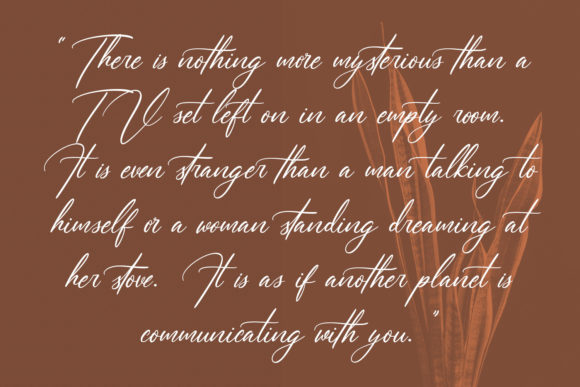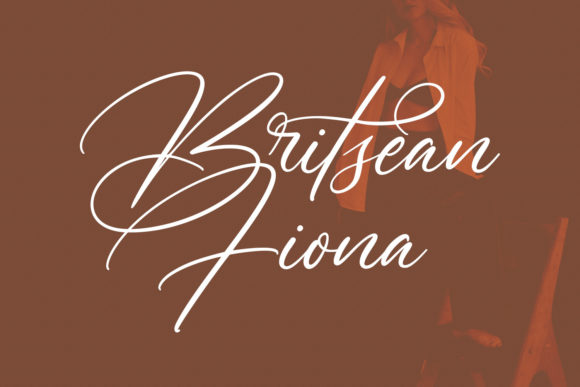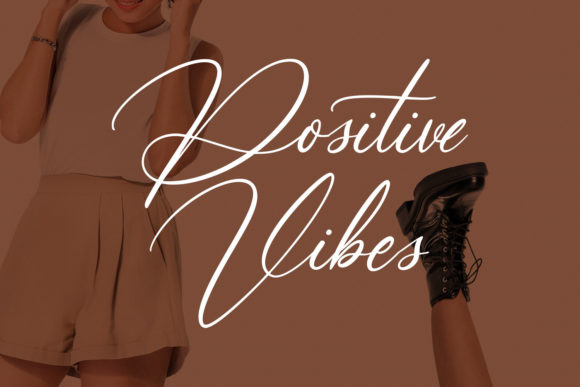
Introduction to Calipatrya  Font
Calipatrya Signature Script is a fancy handwritten script font.
It features medium contrast strokes, fun characters, ligatures and alternates Add it confidently to your favorite creations and let yourself be amazed by the outcome generated.
Calipatrya  Font offers exceptional quality and versatility, making it a valuable addition to your design toolkit. Whether you’re creating for personal projects or commercial use, Calipatrya  Font delivers professional results.